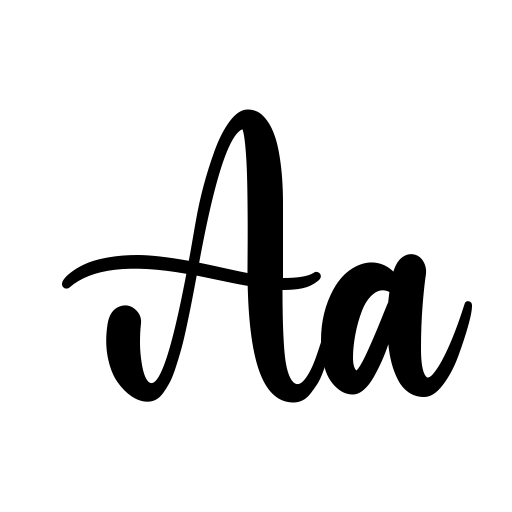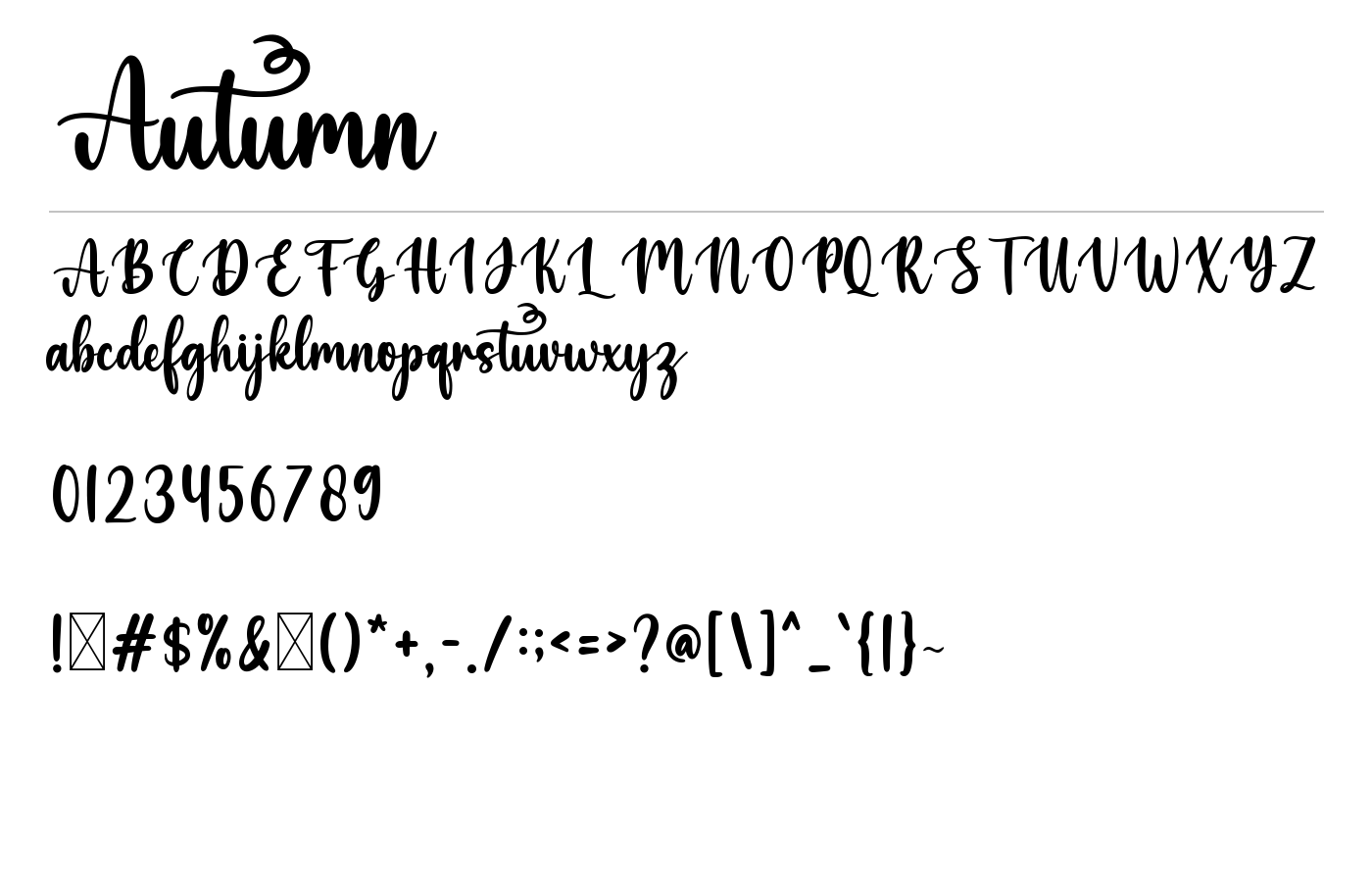
Autumn Font is a charming script typeface with a smooth, hand-lettered feel, featuring flowing, connected strokes and playful swashes that add personality and warmth. Its moderate weight, tall x-height, and casual yet elegant style make it perfect for creative projects like invitations, branding, and social media where a friendly, inviting mood is desired. This font works well in headline and display uses, bringing a personal, artistic flair that feels both modern and approachable.
Autumn Font
About Autumn Font